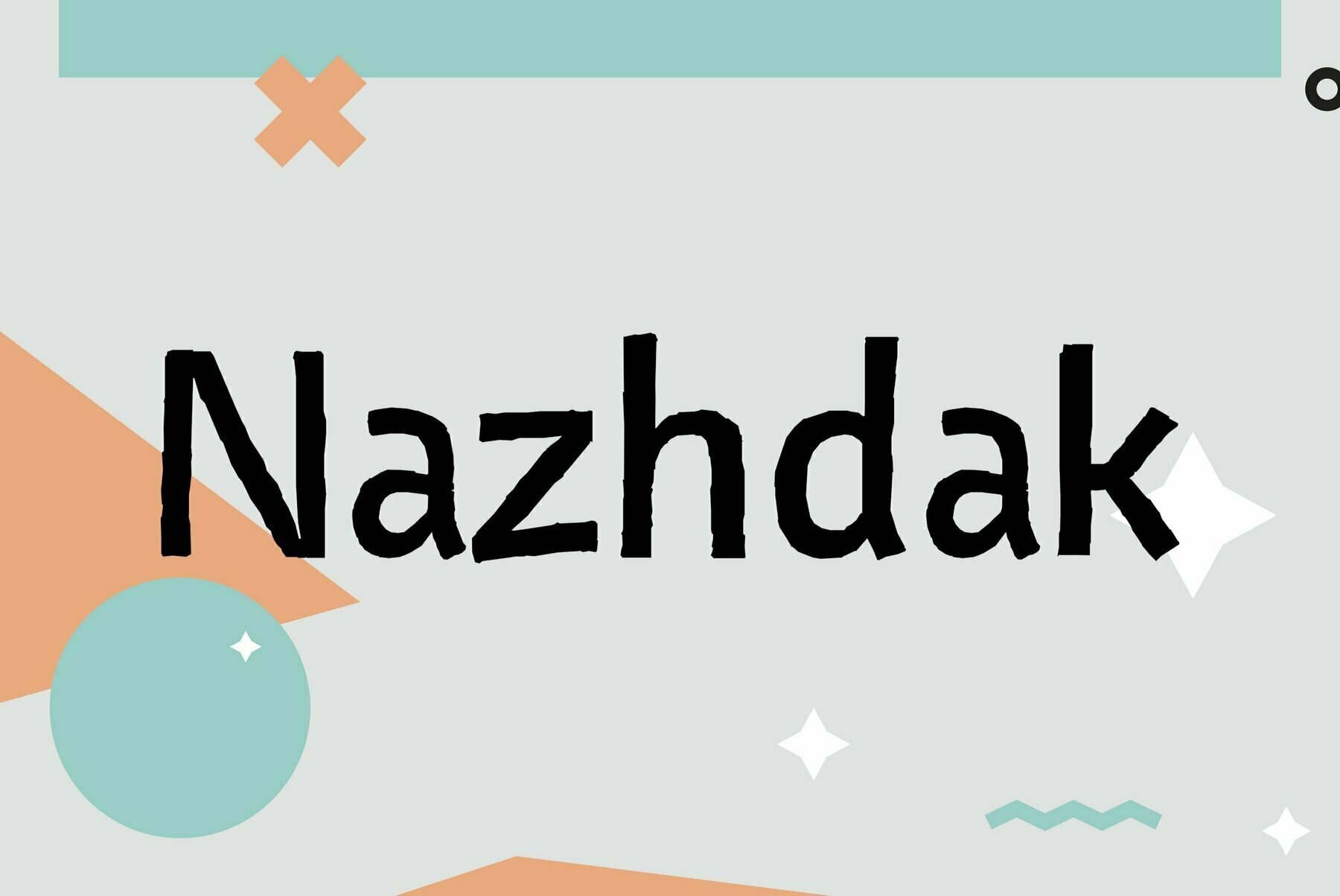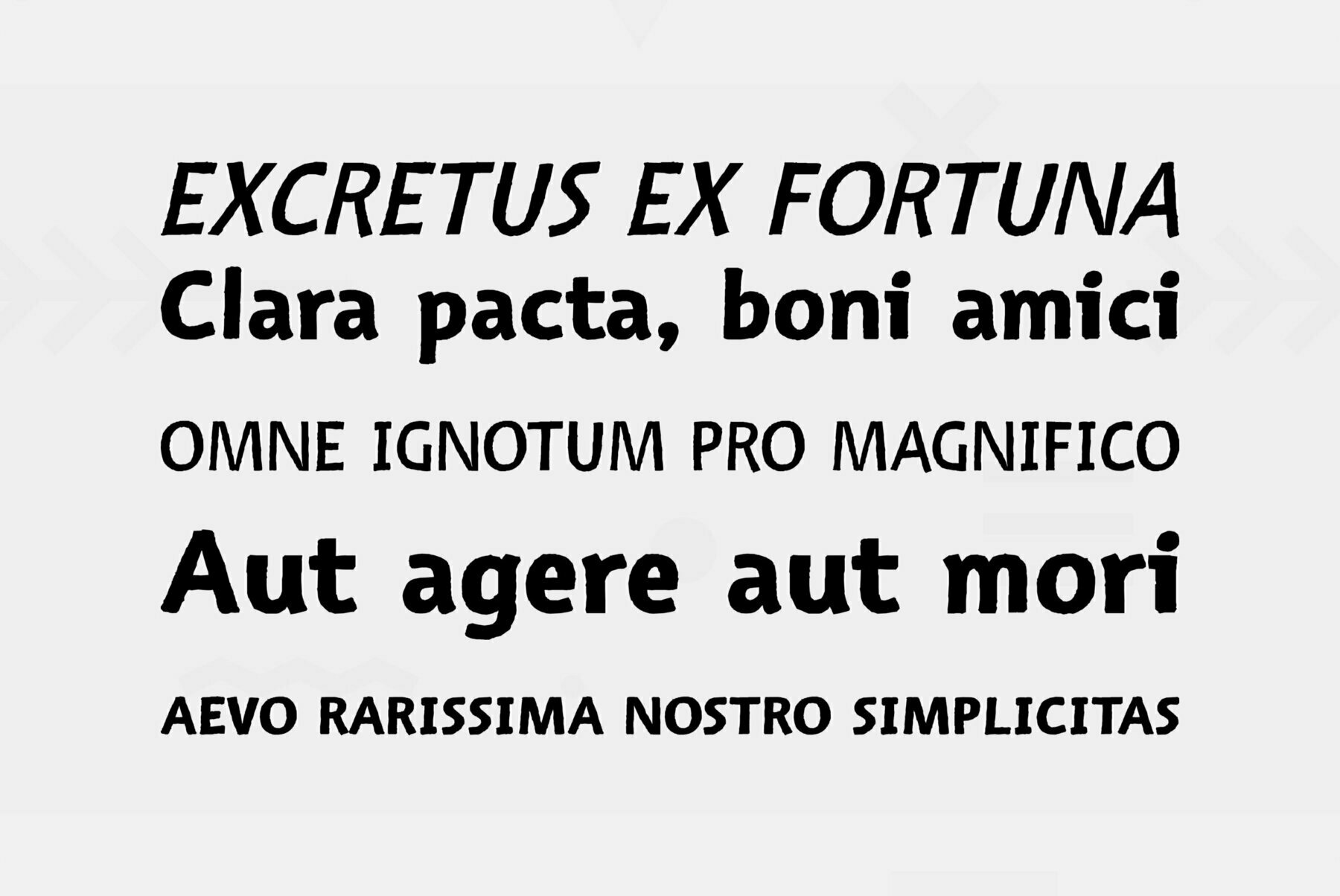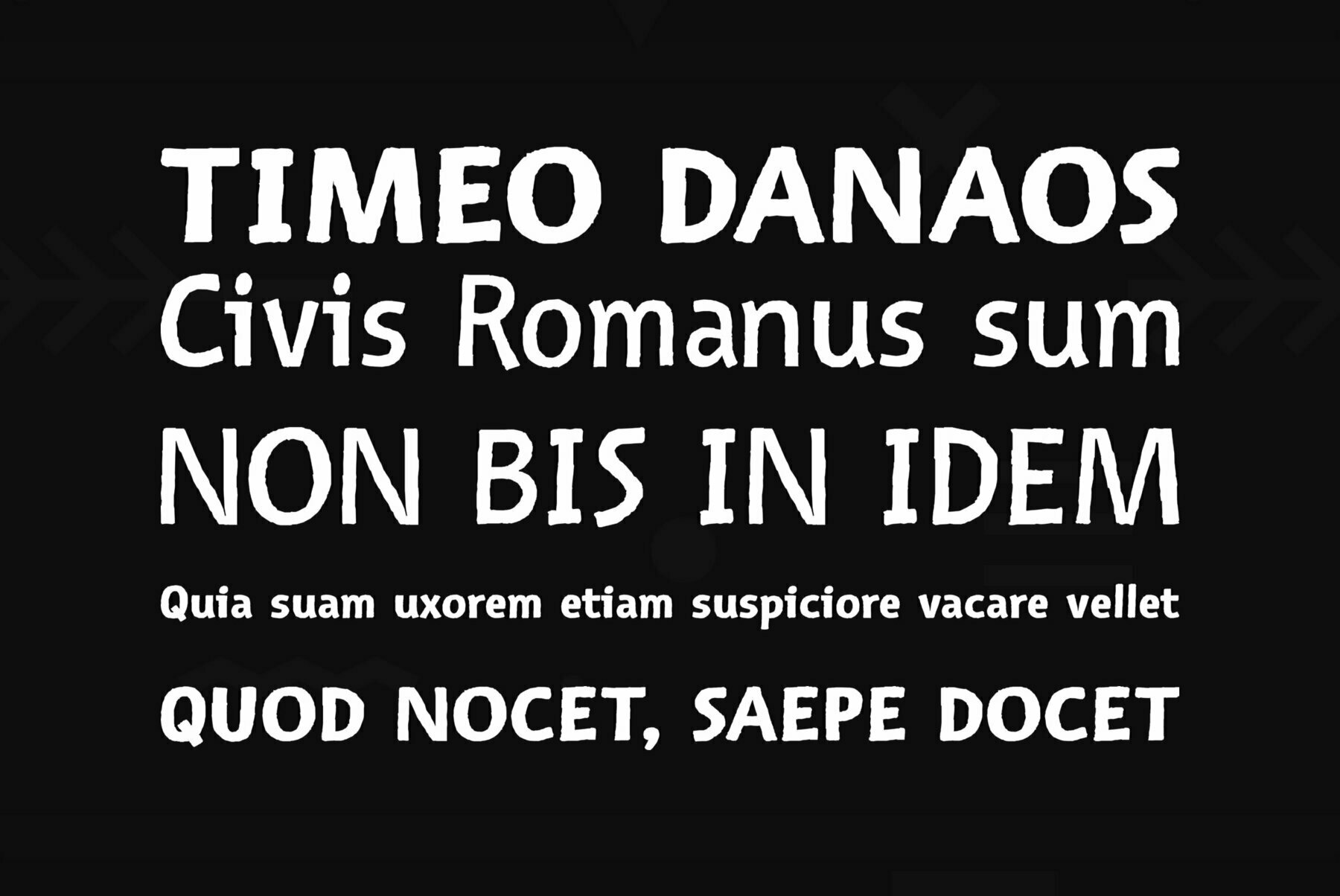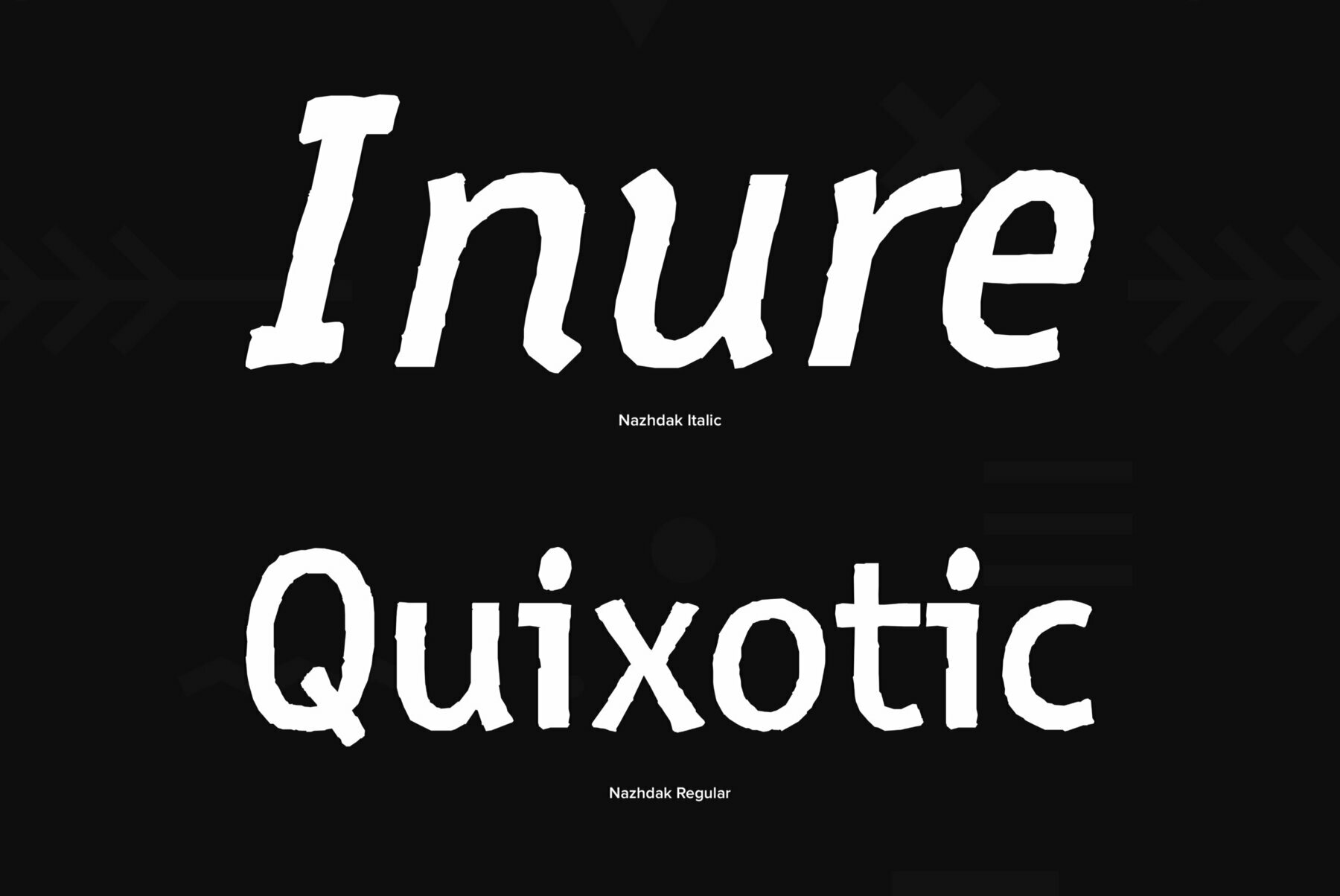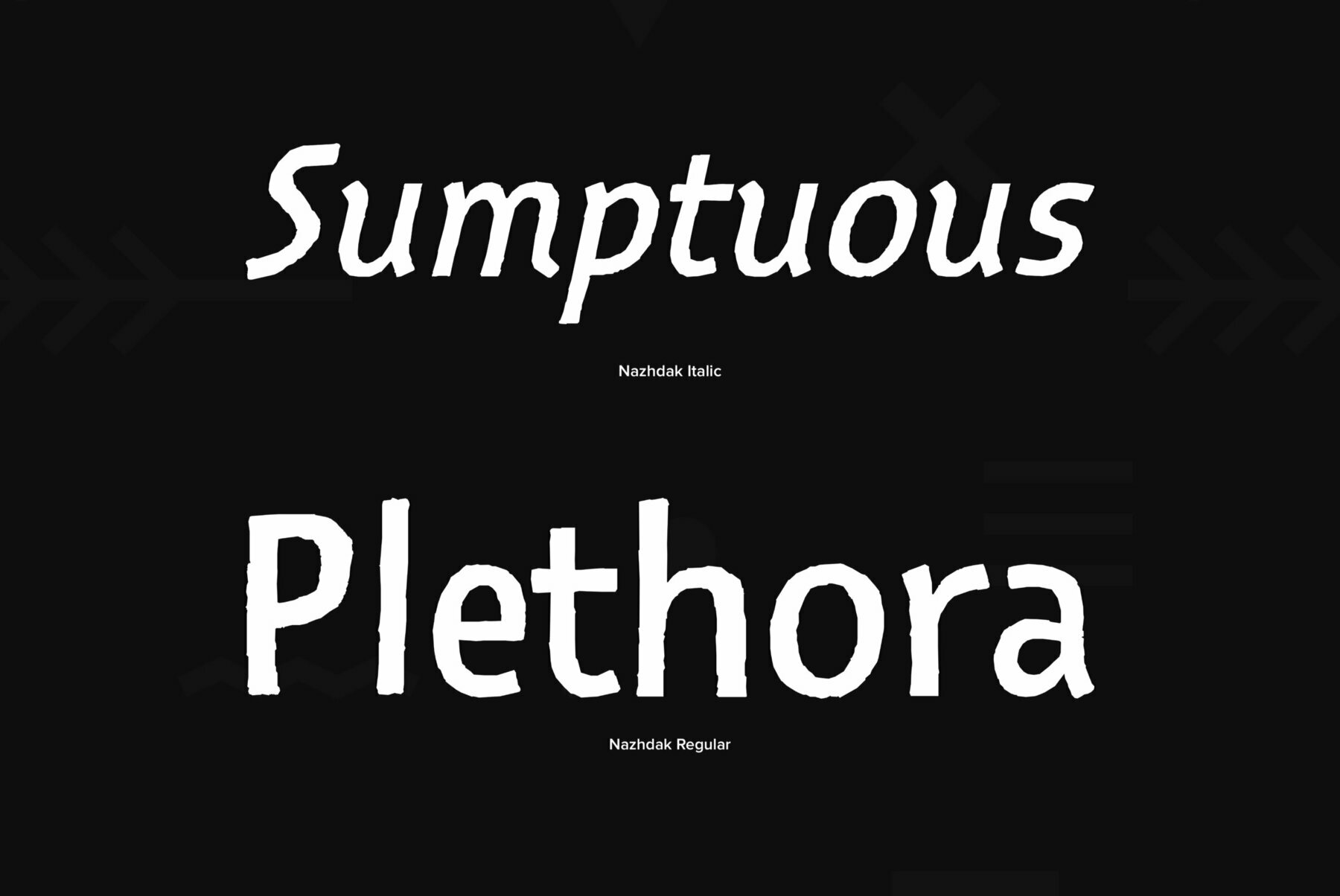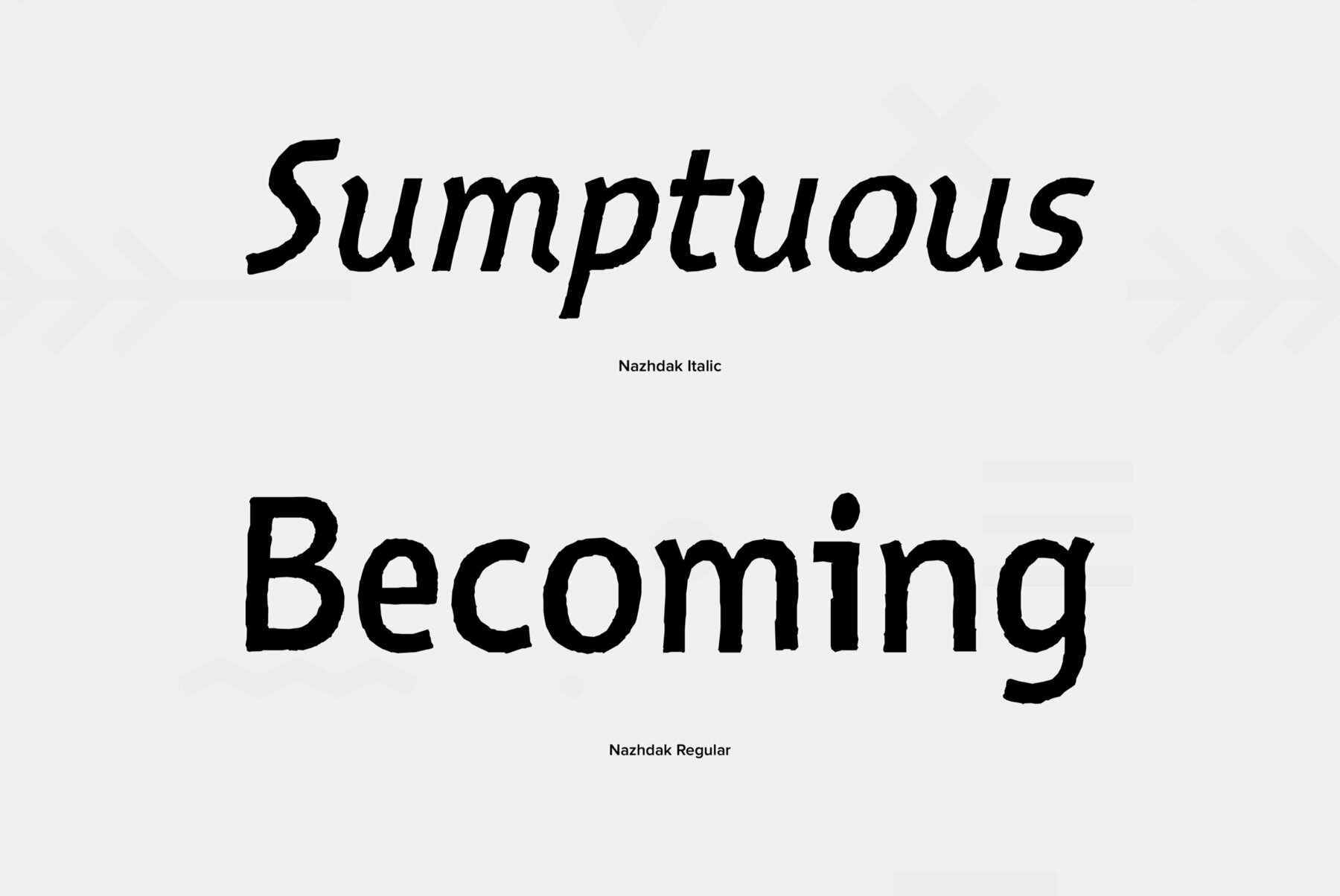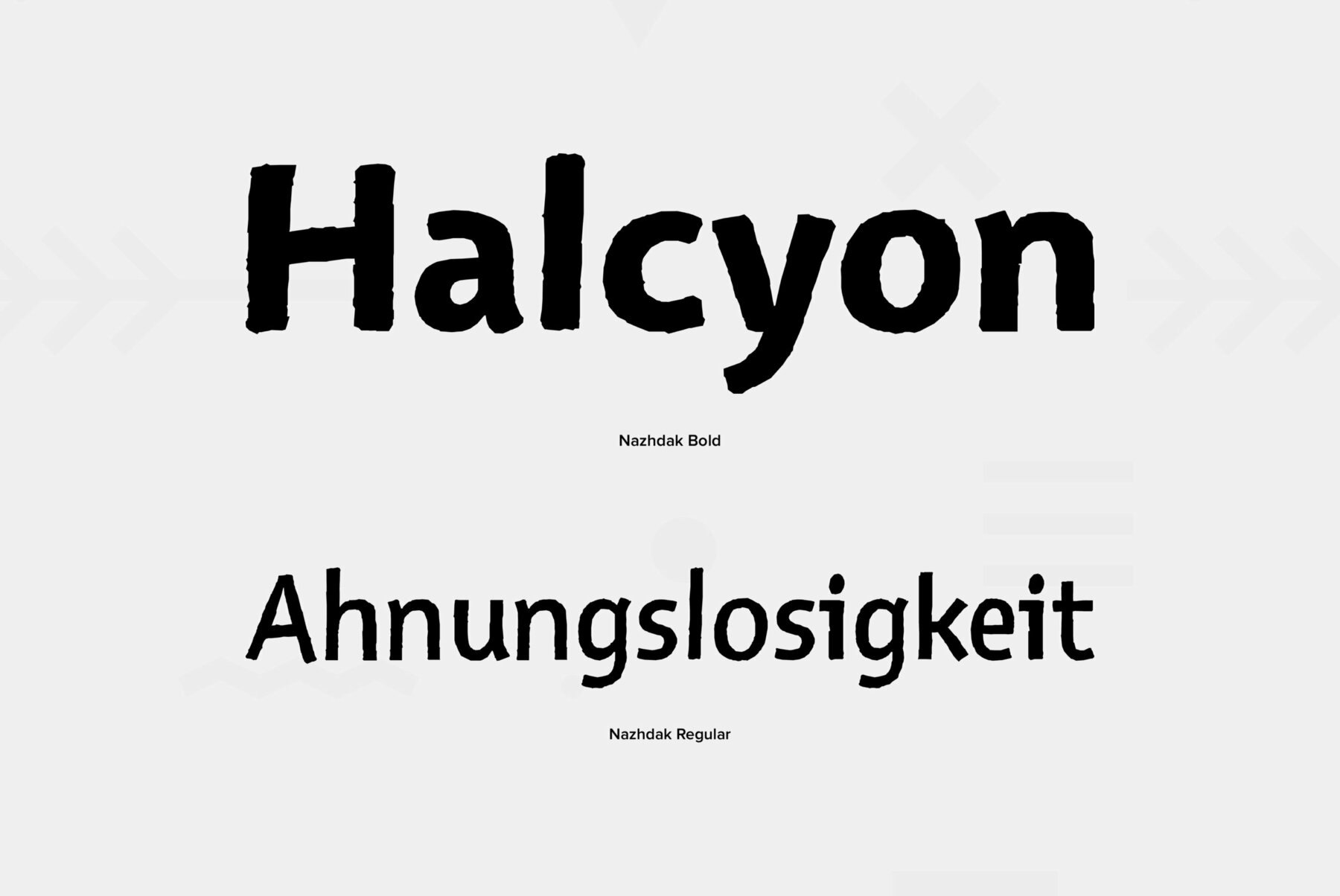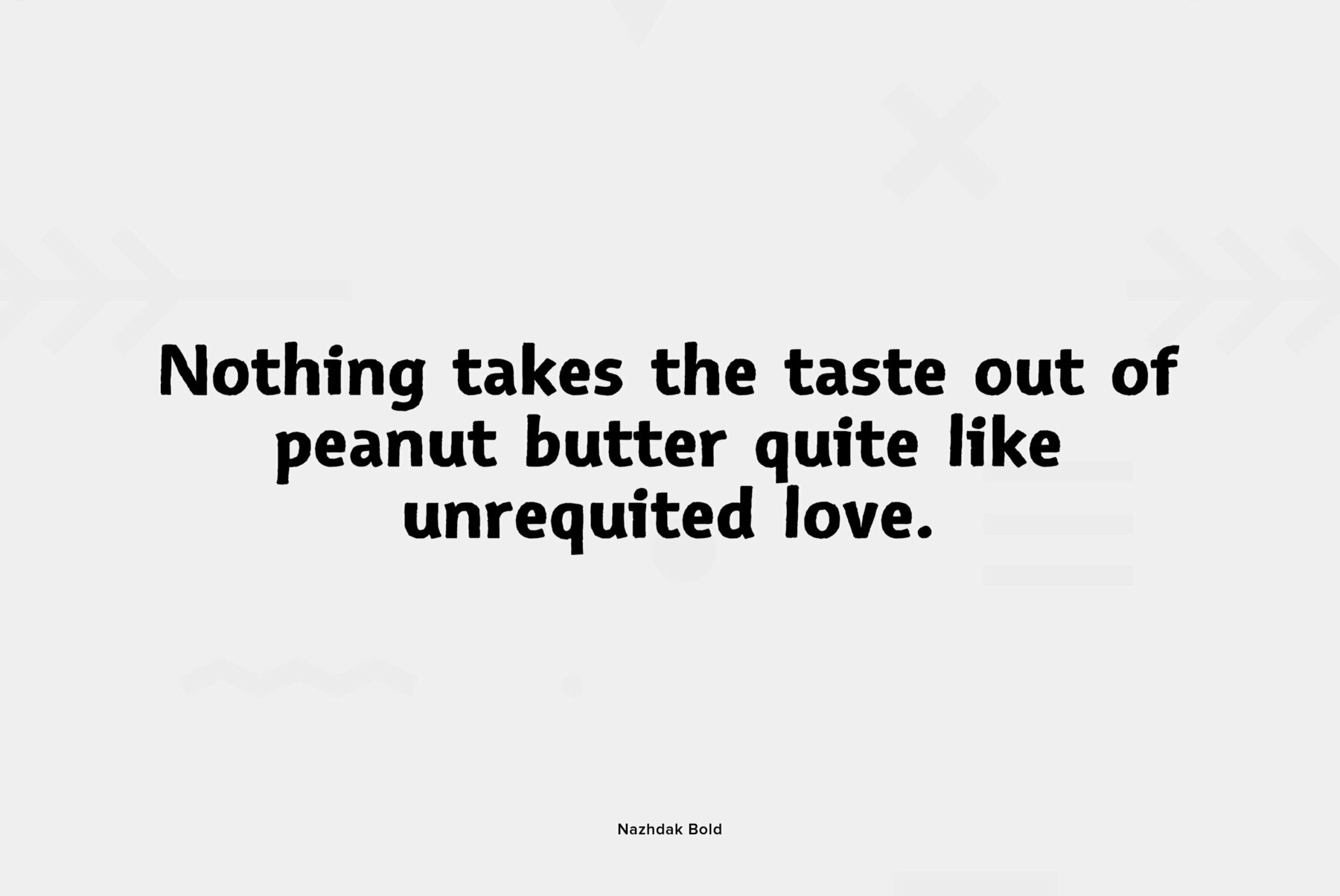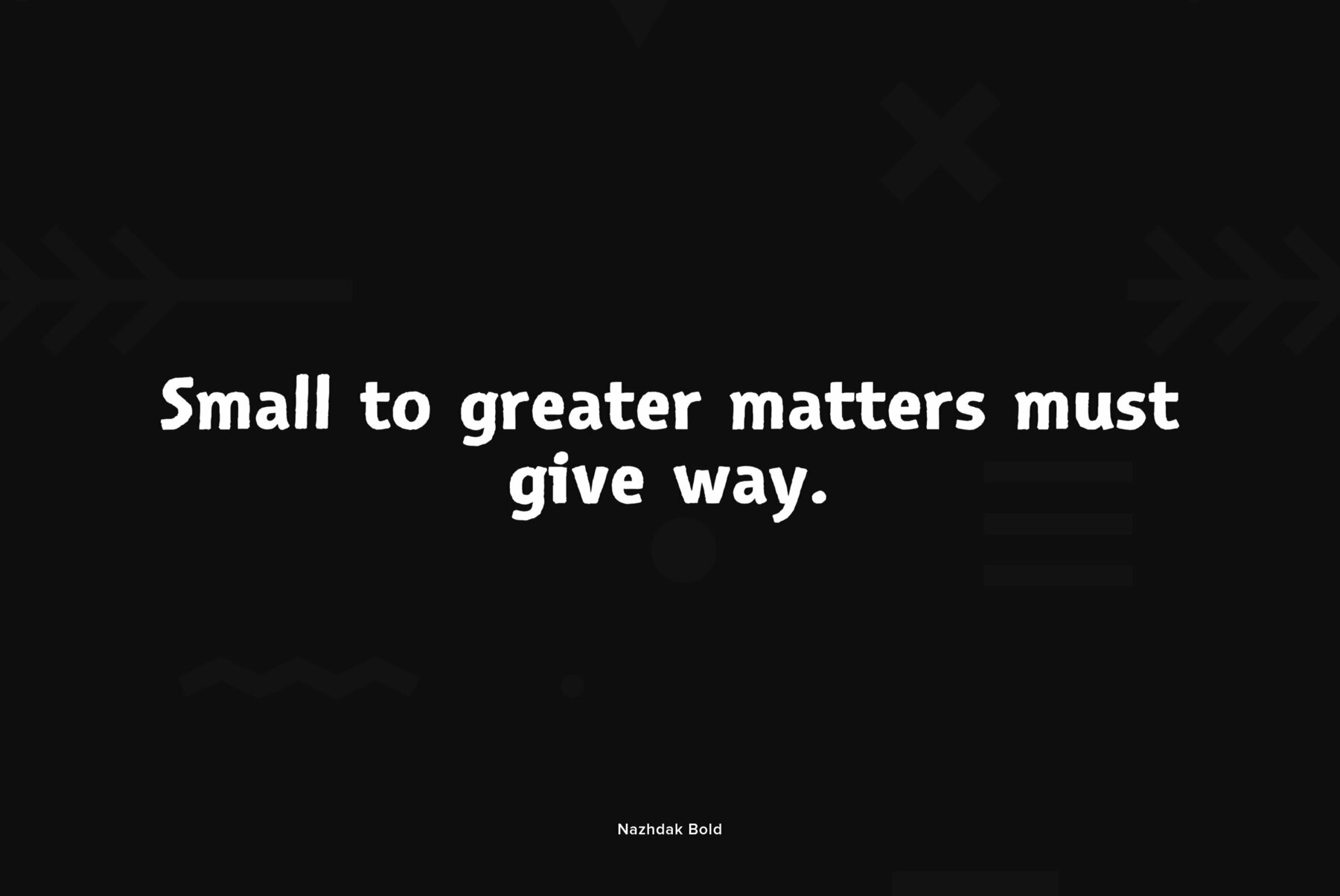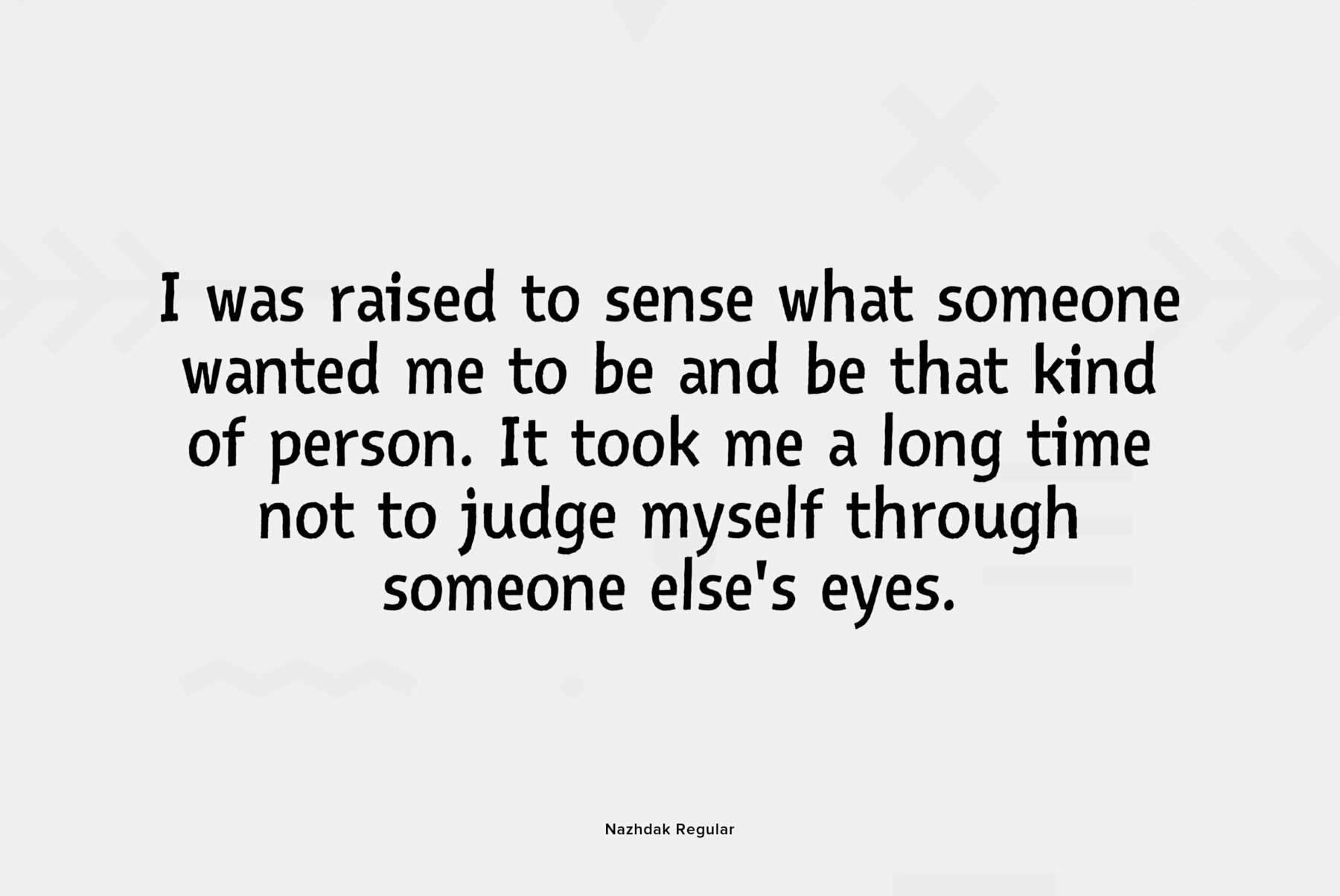
Nazhdak
Nazhdak is a handwriting sans serif of three styles sketched with a felted pen and digitized afterwards. Designed in 2001 under the impression of Erik van Blockland's FF Kosmik typeface. Nazhdak is searching and investigating boundaries between regular and irregular typefaces. In spite of ragged letterforms and general laxity the face is rather good for small sizes, and in large sizes it completely shows its crude fascination. The main destinations are small informal text compositions and display typography. Nazhdak was designed by Zakhar Yaschin and released by ParaType in 2009.